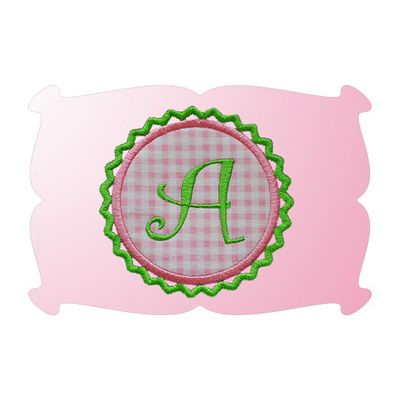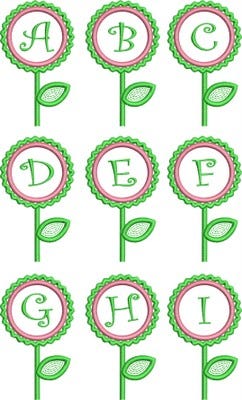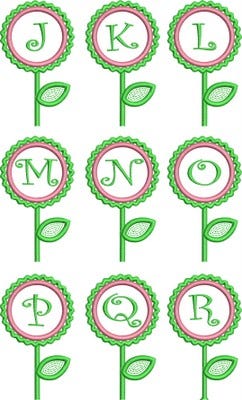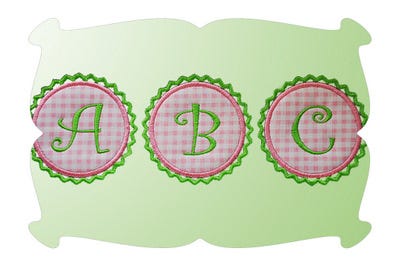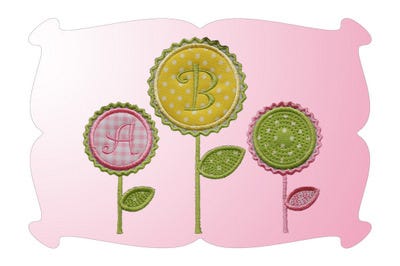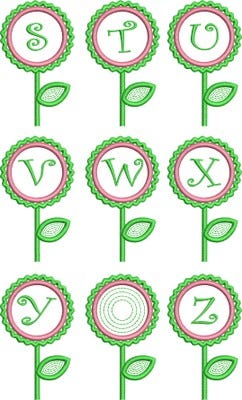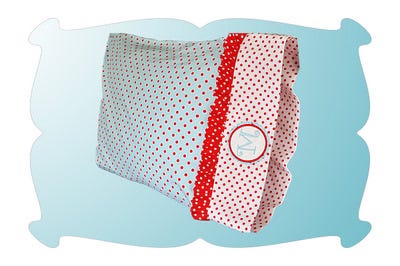
Rick Rack Satin Stitch Applique Monogram Embroidery Font
Rick Rack Monogram Font Set
The Curlz monogram font (capital letters A thru Z) is already embedded onto the design for you.
I love monogram fonts sets!
Our Rick Rack Monogram Font is such a sweet look!
The "Curlz Font, in capital letters A thru Z,
is already embedded onto each design for you.
I love the look of this font on a pillowcase band, but it's sure to be a sweet look on Onesies, t's, tote bags and more!
I also coudn't resist turning the design into a flower as shown above.
Rick rack circles in two sizes: 3 inch (3.00 x 3.00 inches) and 4 inch (3.92 by 3.92 inches) (both sizes fit the 4x4 hoop).
The Curlz monogram font (capital letters A thru Z) is already imbedded onto the design for you.
I've also included a quilted circle (shown below) and a blank circle (not shown).
As a special bonus, you also get the Rick Rack monogram flowers in two sizes: 4x4 (2.20 x 3.75 inches) and 5x7 (3.00 by 5.77 inches).
Again, the Curlz monogram font (capital letters A thru Z) is already imbedded onto the design for you.
I've also inlcuded a quilted flower (shown below) and a blank flower (not shown).